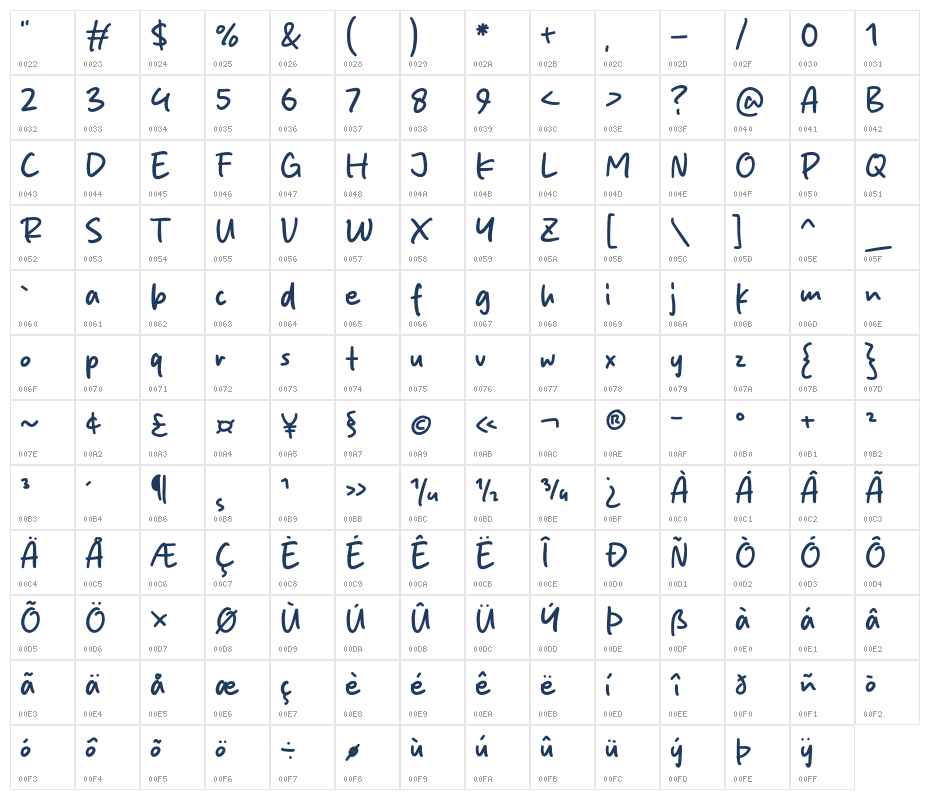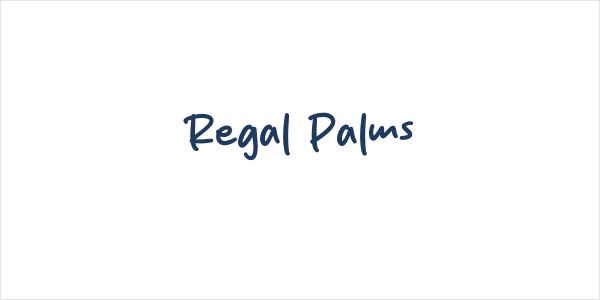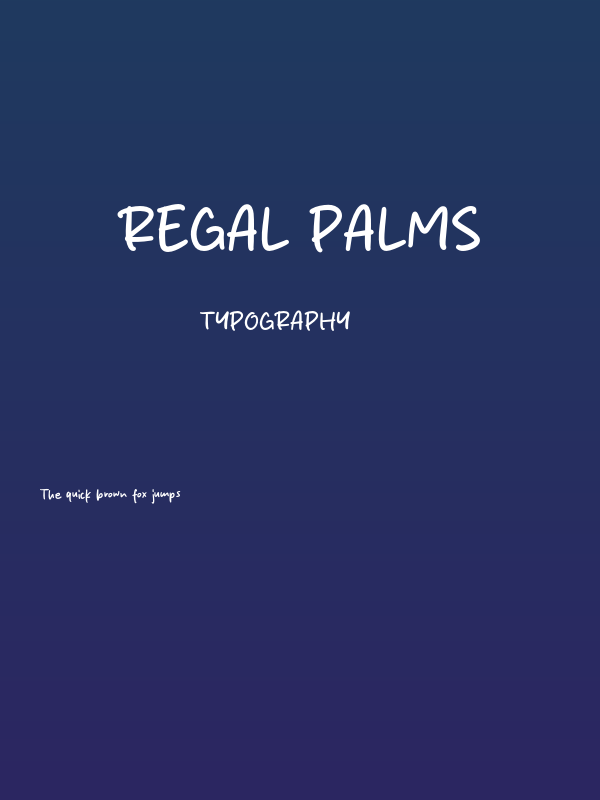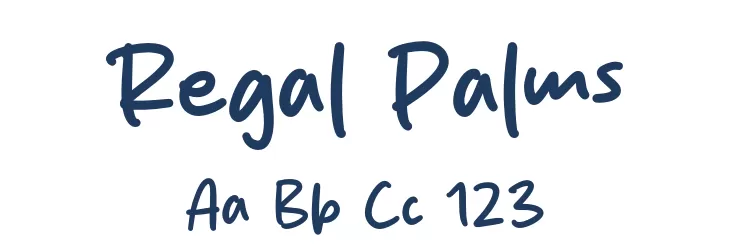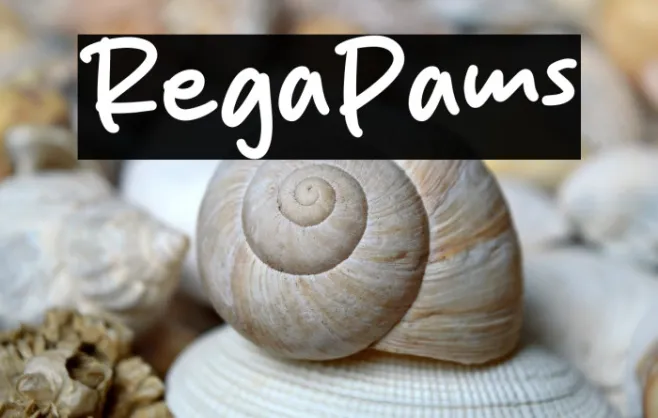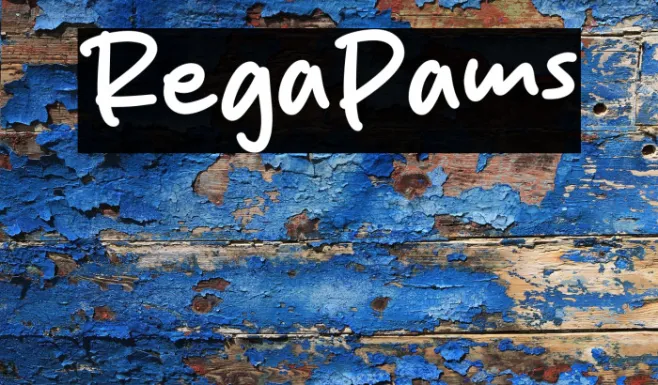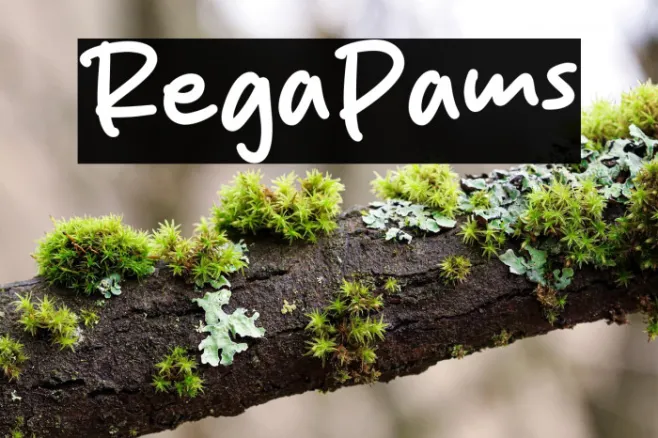
Regal Palms Font
Regal Palms Description
A casual, handwritten script font with a playful and informal style, featuring rounded and slightly irregular characters.
Regal Palms
| Overall Style | Casual, Friendly, Handwritten |
| Use Case | Headlines, Body text, Logos, Invitations |